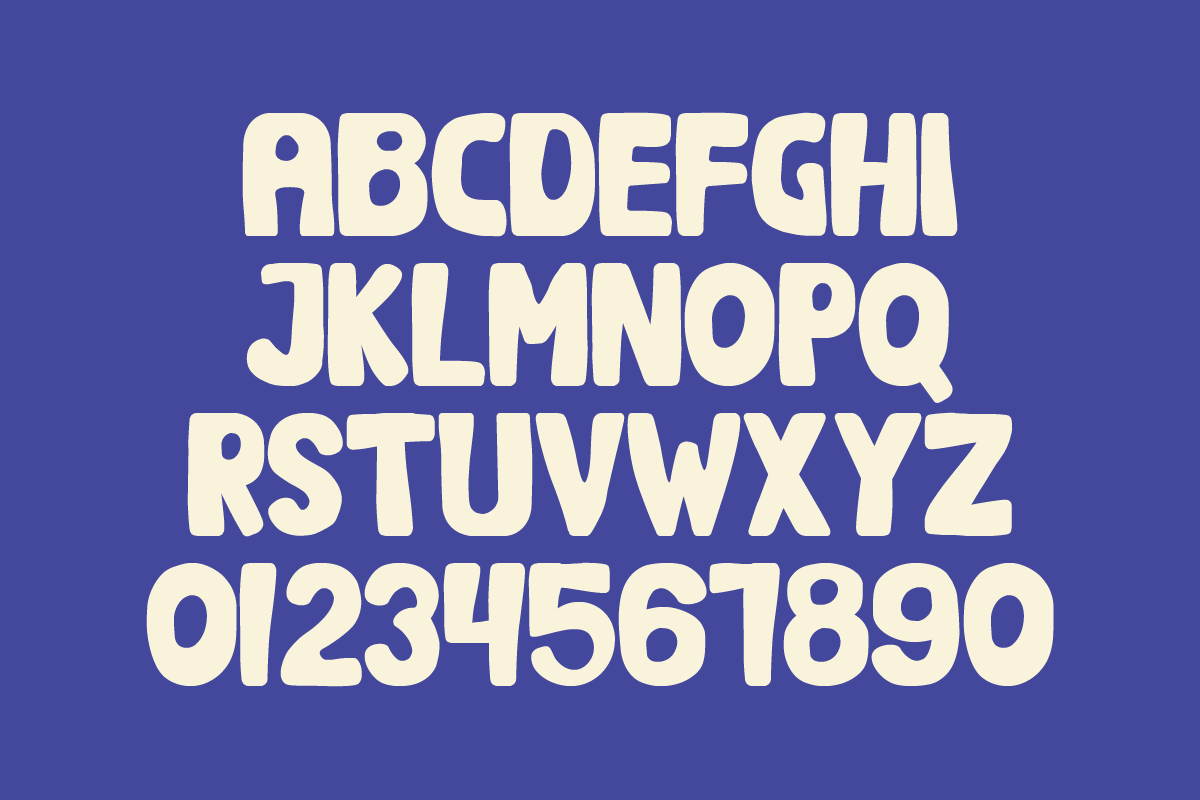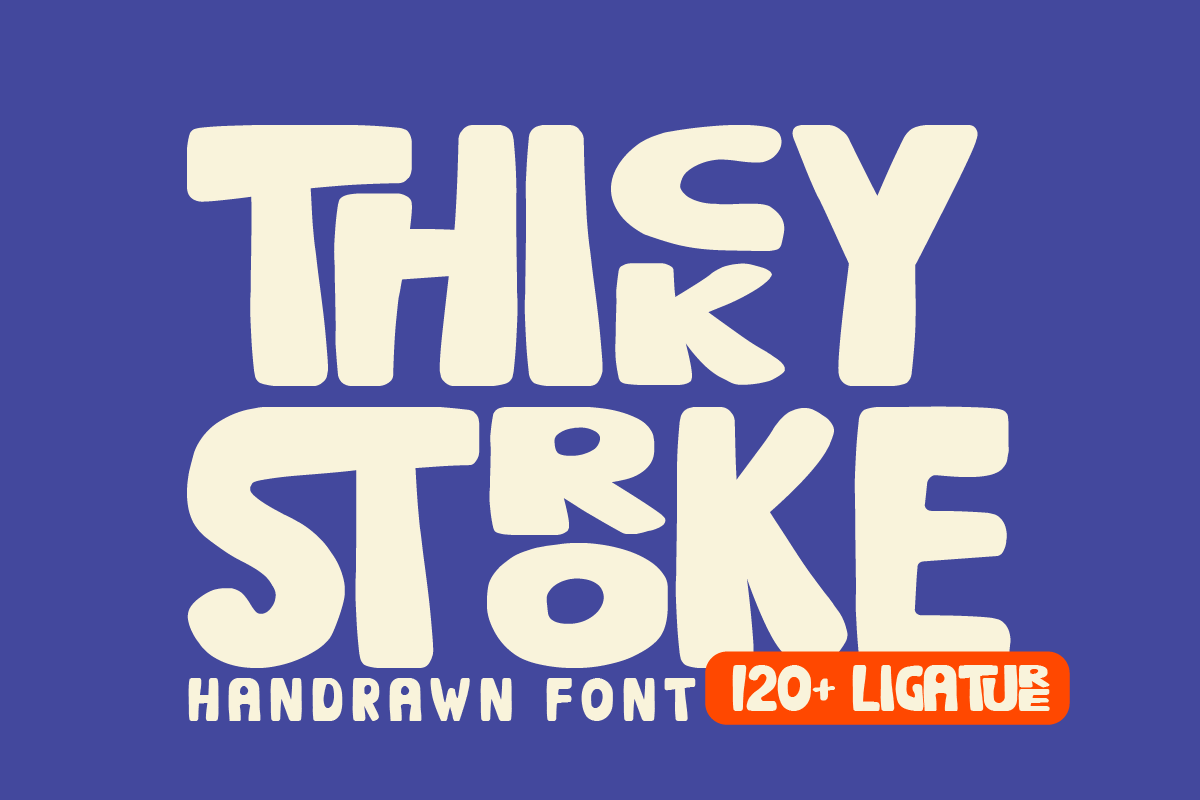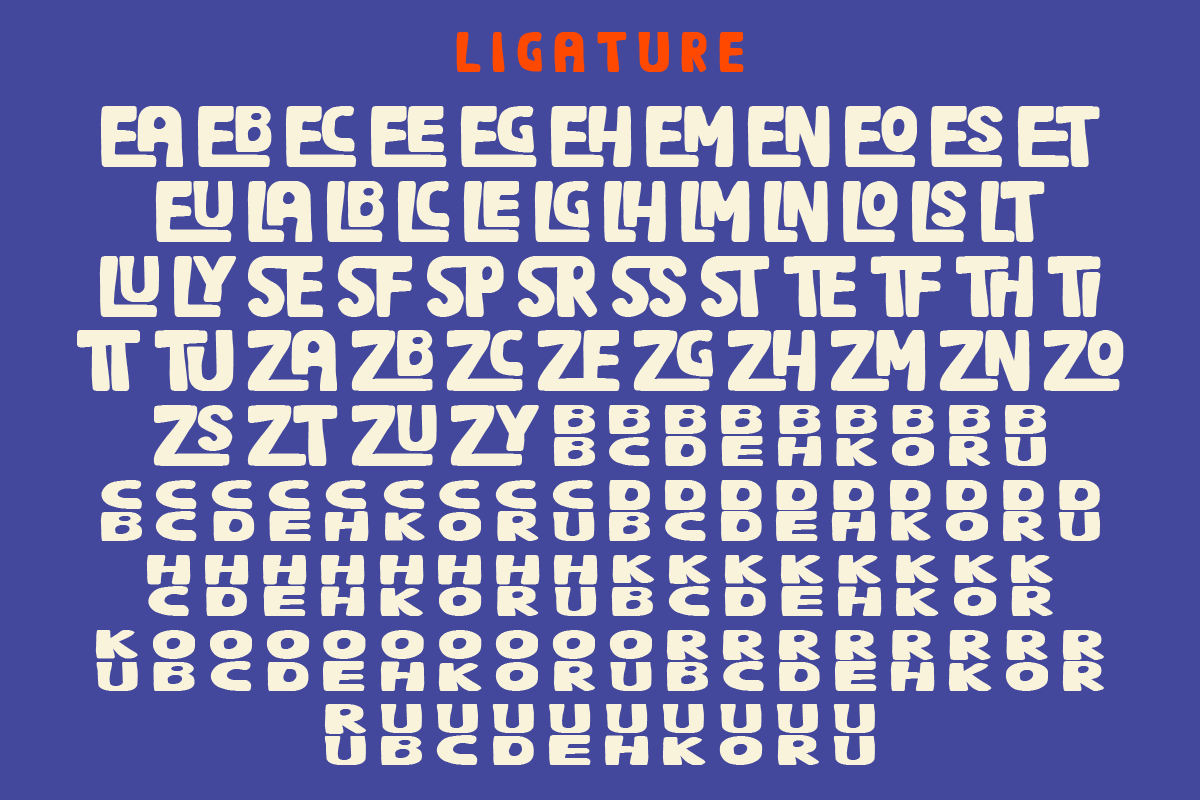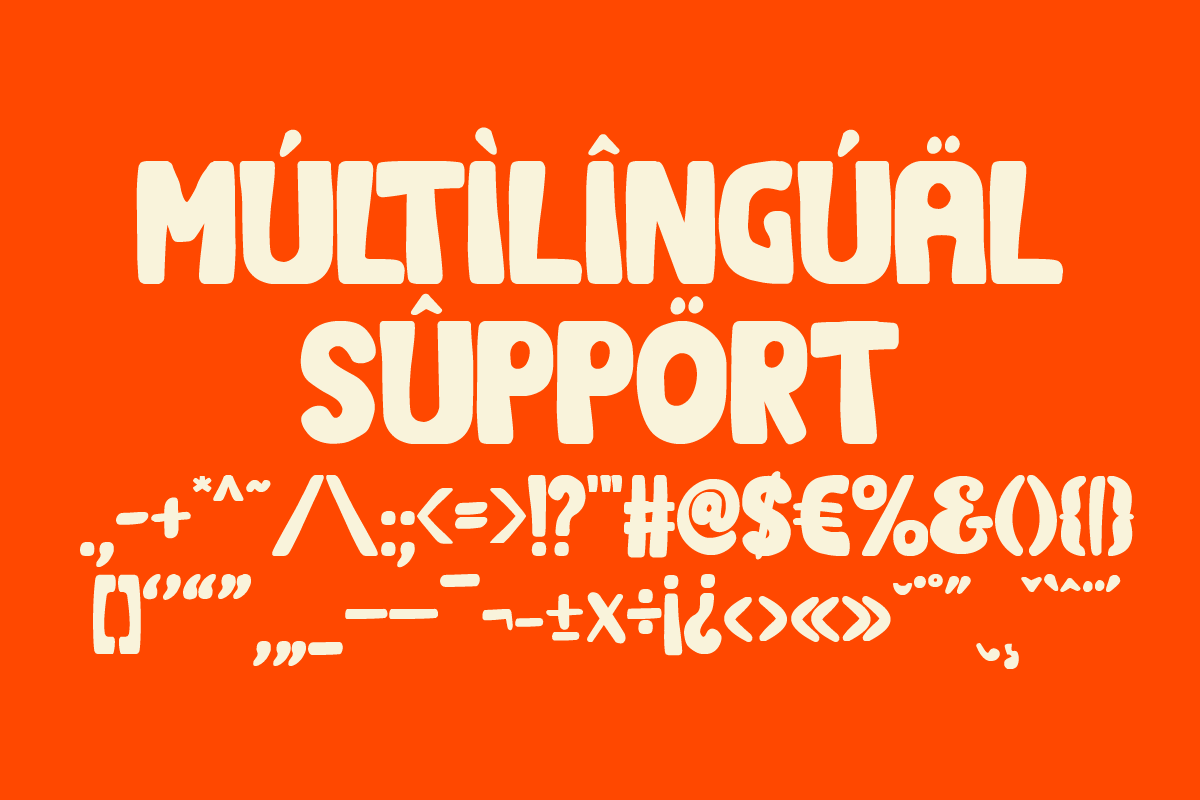
Thicky Stroke - Handrawn Font
ThickyStroke is a modern sans-serif typeface designed with precision and intention. With its clean lines, balanced curves, and versatile form, Halfre brings a sense of quiet confidence to every composition — whether in branding, editorial layouts, UI design, or minimalist packaging.
Crafted to prioritize legibility and elegance, Halfre blends contemporary aesthetics with timeless simplicity. Each character is designed to speak clearly and effortlessly, making it the perfect choice for designers who value function without sacrificing style.
Whether you're building a digital interface or refining a brand’s visual voice, Halfre delivers a crisp, modern tone that adapts seamlessly across mediums.